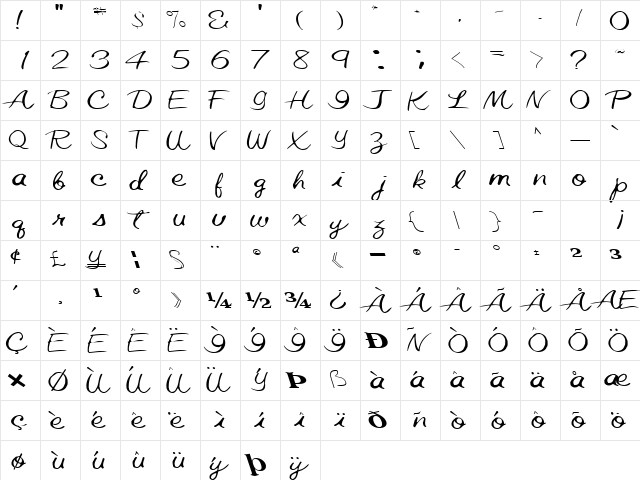
Elastic Regular Font Preview
Elastic Regular
Design Context for Elastic Typeface
Elastic is a composed and adaptable typeface that performs quietly and consistently across a wide range of design contexts.